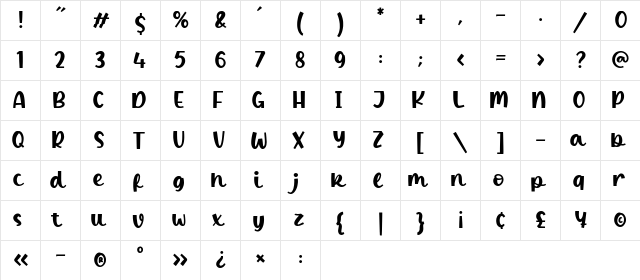
Winter Candle Regular
Design Context for Winter Candle Typeface
Winter Candle is a composed and adaptable typeface that performs quietly and consistently across a wide range of design contexts.
Pro Tip: Use Winter Candle in both headline and body roles to test its range before committing to a single application.